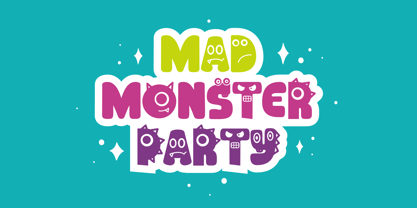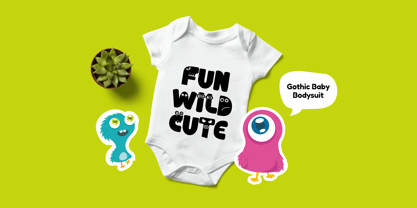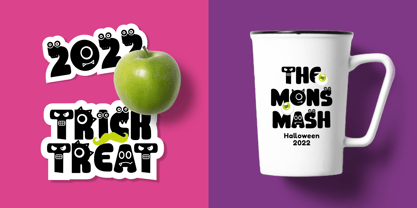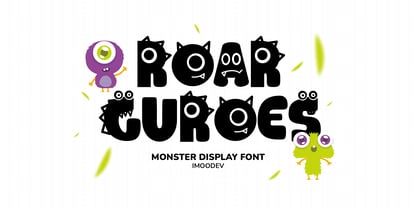
Roar Guroes
The Roar Guroes Font Family was designed by Aulia Savira Putri and published by Imoodev. Roar Guroes contains 1 styles. More about this family
Roar Guroes is a monster-themed display font. This font transforms each letter into a cheeky little creature—complete with googly eyes, sharp fangs, horns, scales, and quirky expressions—bringing every word to life with a playful, cartoonish vibe.
This font is ideal for children’s products, Halloween-themed materials, playful branding, games and educational apps, children’s products (books, clothes, toys), birthday invitations, poster, or educational graphics. It's not just typography—it’s a parade of creatures having a party on your screen.